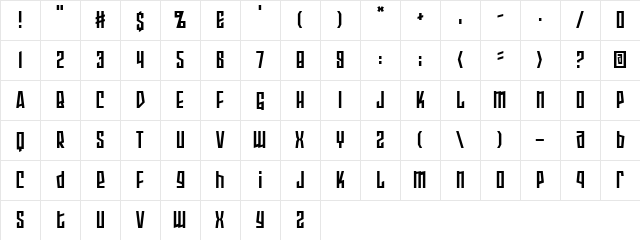
Armor Piercing 2.0 BB Regular Free Font
Armor Piercing 2.0 BB Regular
Design Context for Armor Piercing 2.0 BB
Armor Piercing 2.0 BB is a composed and adaptable typeface that performs quietly and consistently across a wide range of design contexts.
Pro Tip: Use Armor Piercing 2.0 BB in both headline and body roles to test its range before committing to a single application.